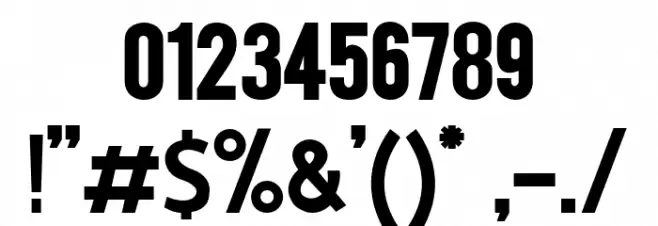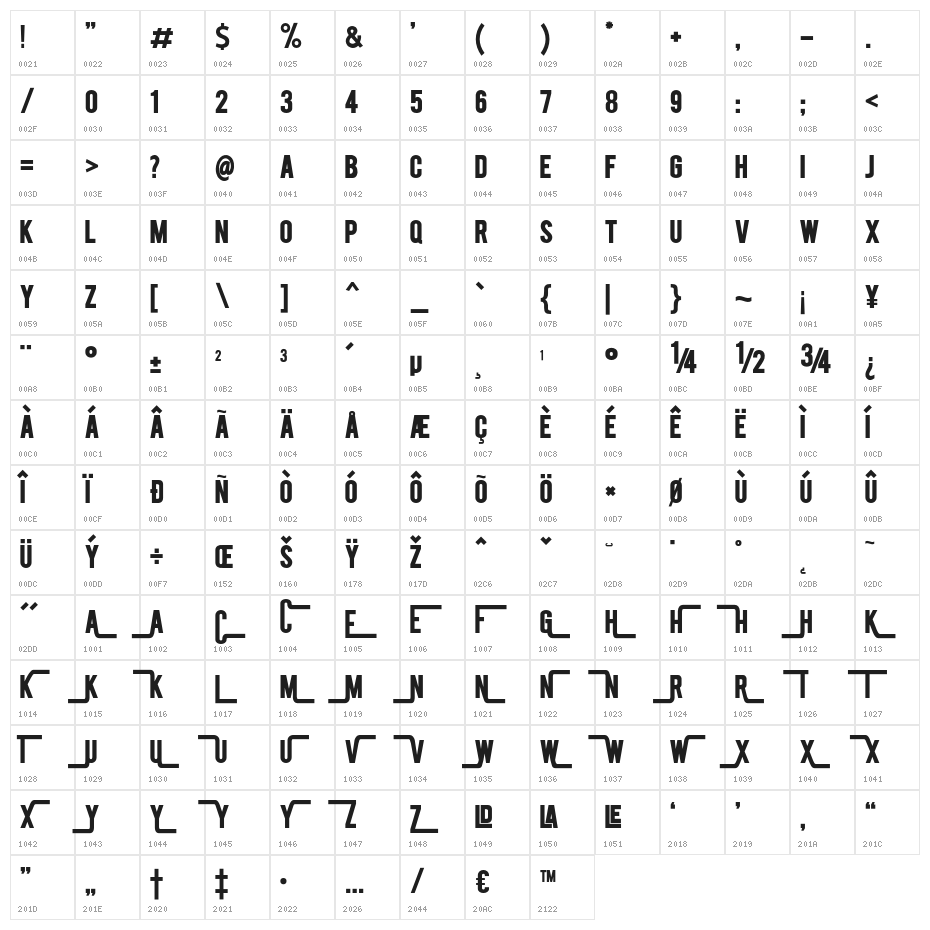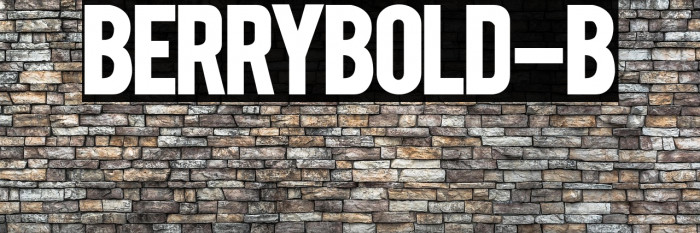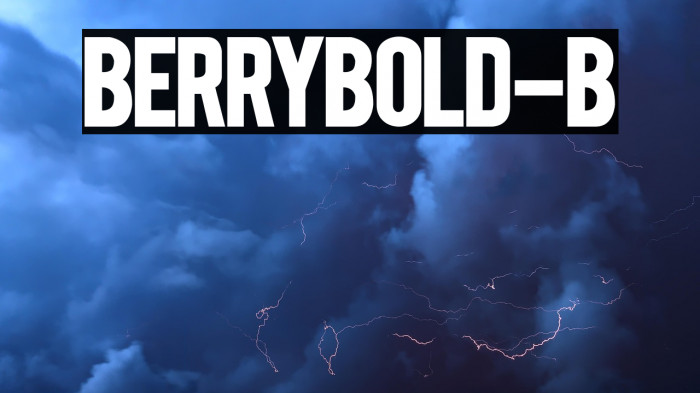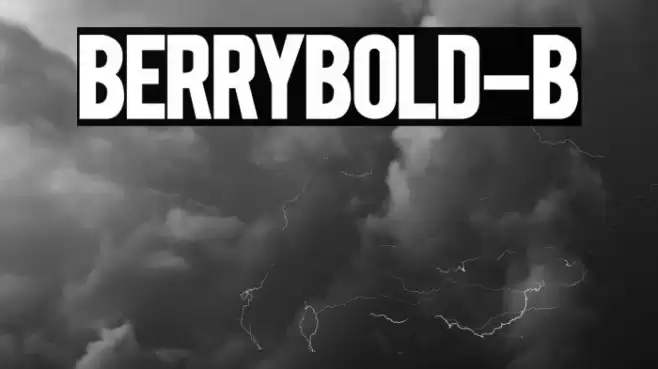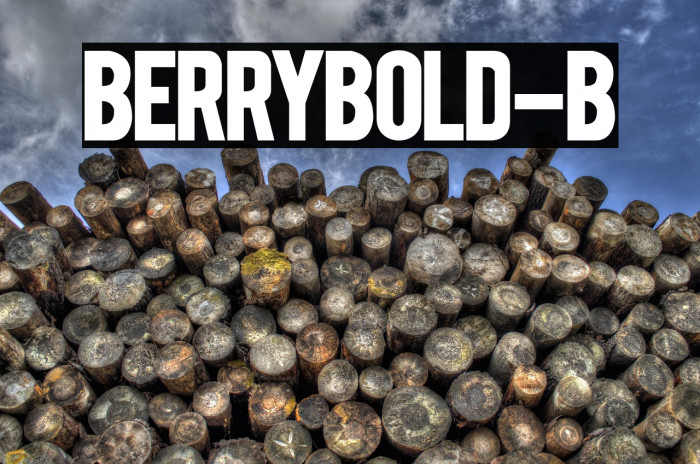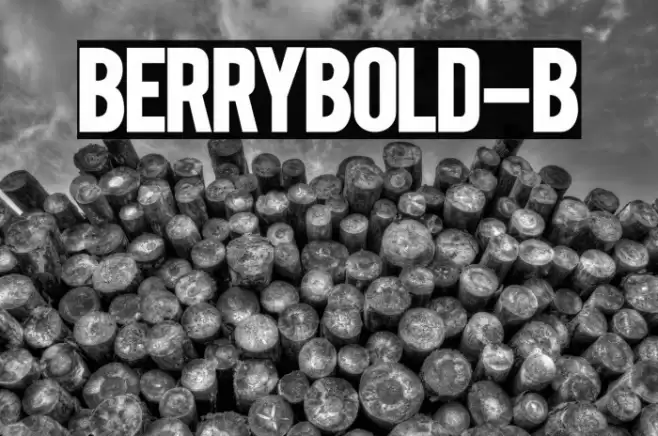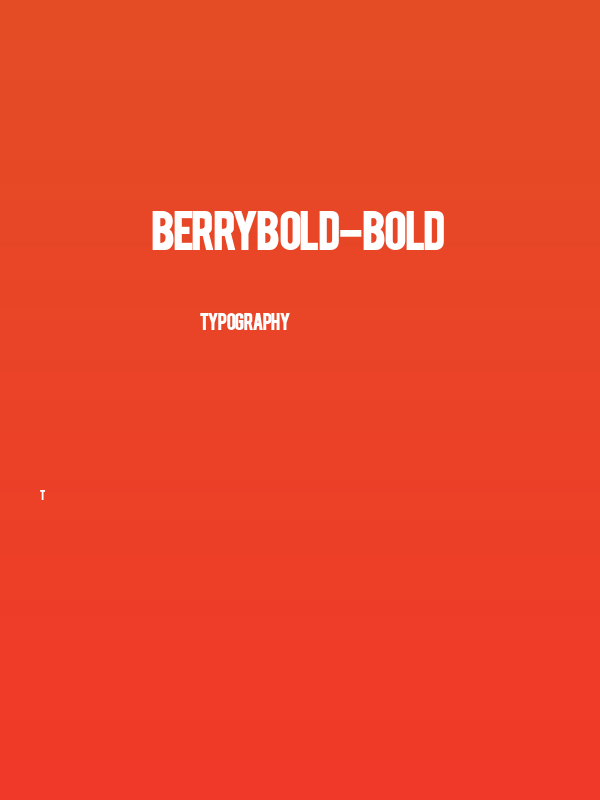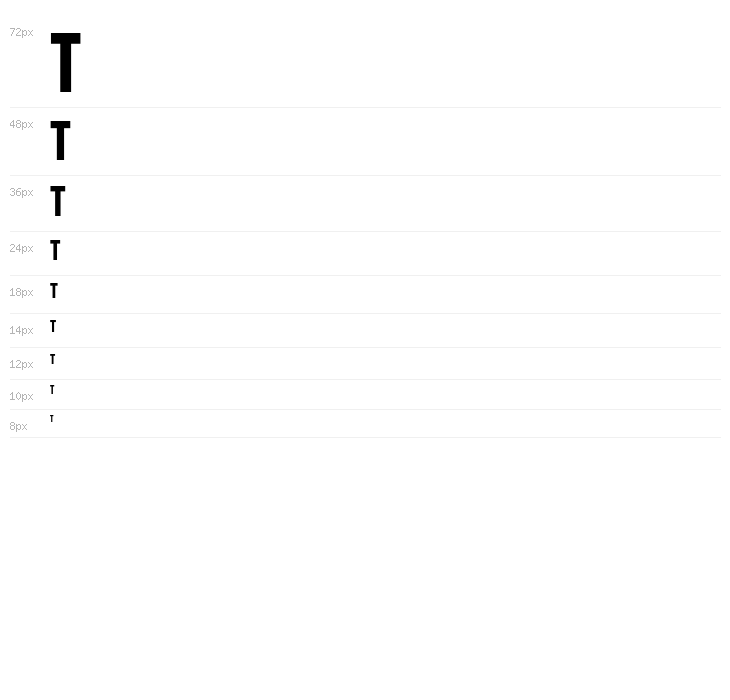
BERRYBOLD-Bold Font
BERRYBOLD-Bold Description
This font features a bold and impactful design, characterized by thick, uniform strokes that convey strength and confidence. The uppercase letters are prominent and assertive, making them ideal for attention-grabbing headlines. The numbers and special characters maintain the same boldness, ensuring consistency across all text elements. The overall appearance is clean and modern, with a slight geometric influence that adds to its contemporary feel. The font's strong presence makes it suitable for branding, advertising, and any project that requires a commanding visual impact.
| Proposed Projects | Branding, advertising, posters, headlines, and any design requiring a strong visual impact. |